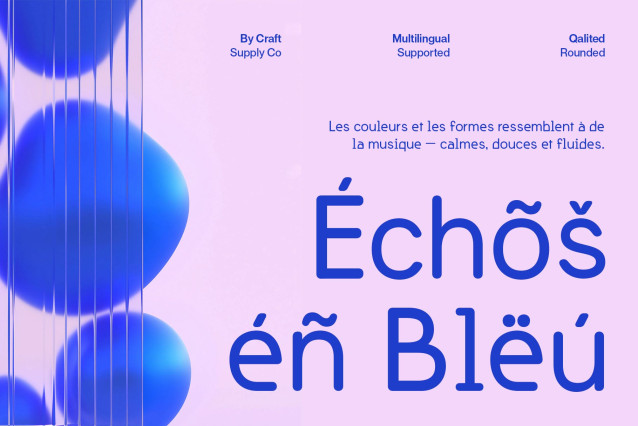
Qalited Rounded Font
Qalited Rounded Font is a modern display sans-serif font that balances rugged industrial structure with smooth, rounded edges. Its bold geometry reflects strength and precision, while the softened terminals add an inviting, humanized touch—offering a visual blend of confidence and warmth.